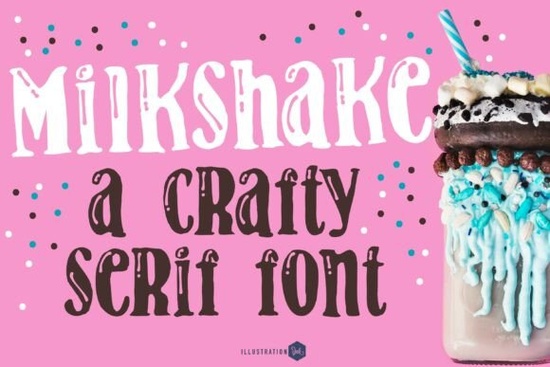
Looking for a thick, bouncy serif font that feels like it belongs on a vintage ice cream shop chalkboard? Milkshake Family Font is a hand-carved decorative typeface with playful, irregular outlines and liquid-like details that give every letter a cheerful, handcrafted personality. It works beautifully for sweet shop branding, bakery packaging, kids' party invitations, and social media graphics that need a fun, warm vibe.
What makes the Milkshake Family Font different from other decorative serifs?
Most decorative serif fonts lean either too retro or too polished. Milkshake sits in a sweet spot between the two. The letterforms have a heavy, chunky footprint with bouncy proportions, but what really sets them apart are the small, liquid-shaped light reflection cuts along the edges. These tiny details mimic the look of something hand-snipped from thick paper or carved into a rubber stamp.
The outlines are intentionally irregular. That imperfection gives the font a genuine handmade quality that you simply cannot get from a perfectly geometric typeface. It's the kind of detail that makes a logo or poster feel personal rather than mass-produced.
Where does this font work best?
Milkshake was designed with small business branding, event posters, and social media content in mind. Here are some real-world uses that make the most of its style:
- Independent bakeries and confectionery shops perfect for logo marks, menu boards, and packaging labels
- Boutique milkshake and smoothie bars the playful weight and bouncy rhythm match the brand personality
- Children's birthday parties and baby showers invitations, banners, and favor tags all benefit from its cheerful look
- Print-on-demand products mugs, tote bags, and t-shirt designs with a sweet or nostalgic theme
- Social media headlines bold enough to stop a scroll, friendly enough to build trust
Because the font is so heavy and full of character, it works best at larger display sizes. Think headers, titles, and logos rather than body paragraphs. Pair it with a clean, lightweight sans-serif for readable supporting text.
How does Milkshake compare to other Creative Fabrica serif fonts?
If you're browsing Creative Fabrica for serif options, you'll likely come across a few other popular picks. Each has its own personality, so the right choice depends on the mood you're after.
A bold serif with classic structure can give your design a more traditional, editorial feel. Meanwhile, a romantic serif with flowing curves leans softer and more elegant great for wedding invitations or feminine branding. And if you want something with a decorative, ornate edge, a decorative serif with ornamental details might be the better fit for luxury packaging or high-end event stationery.
Milkshake stands apart because it prioritizes playfulness over elegance. Where those other typefaces aim for sophistication, this one is all about warmth, energy, and a touch of whimsy. If your brand or project needs to feel approachable and fun, it's the stronger choice.
Who should choose this font?
This typeface is a solid match for:
- Small business owners who want a recognizable, personality-driven logo without hiring a custom lettering artist
- Crafters who sell handmade goods at markets or online and need packaging that stands out
- Print-on-demand sellers building niche stores around retro, kawaii, or dessert-themed designs
- Social media managers creating seasonal campaign graphics for food brands or kids' products
- Event planners designing invitations, signage, and thank-you cards with a warm, friendly tone
If your project calls for something more refined or classic, you might prefer pairing Milkshake with one of the more understated serifs mentioned above. But if the brief says fun, bold, and sweet, this font delivers exactly that.